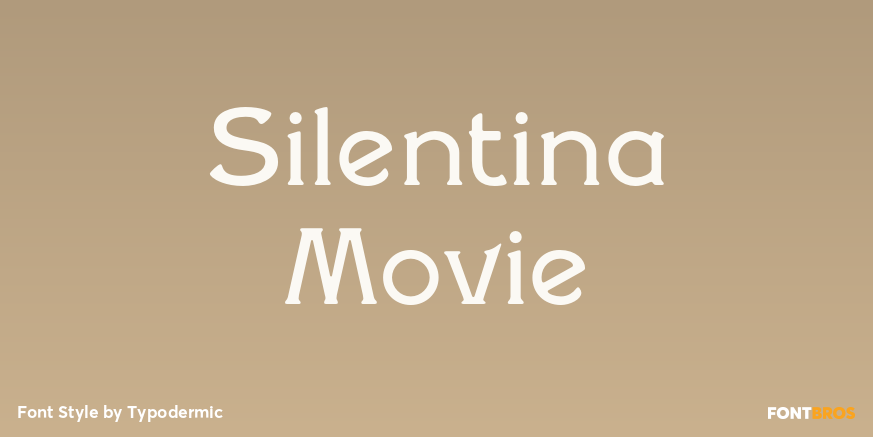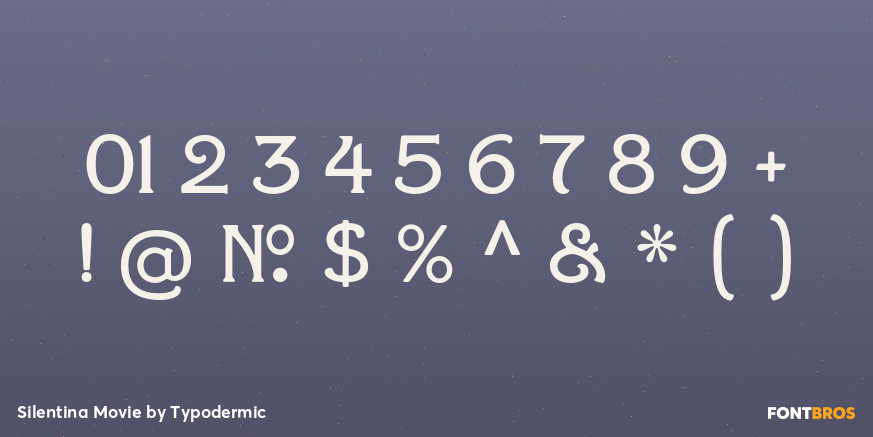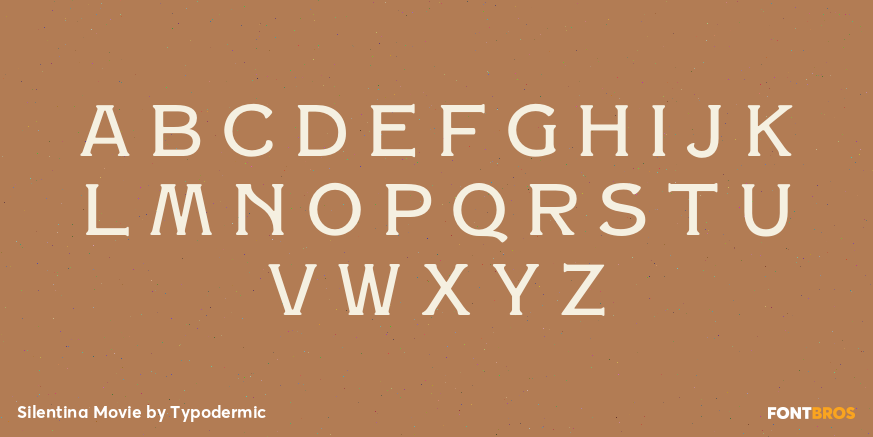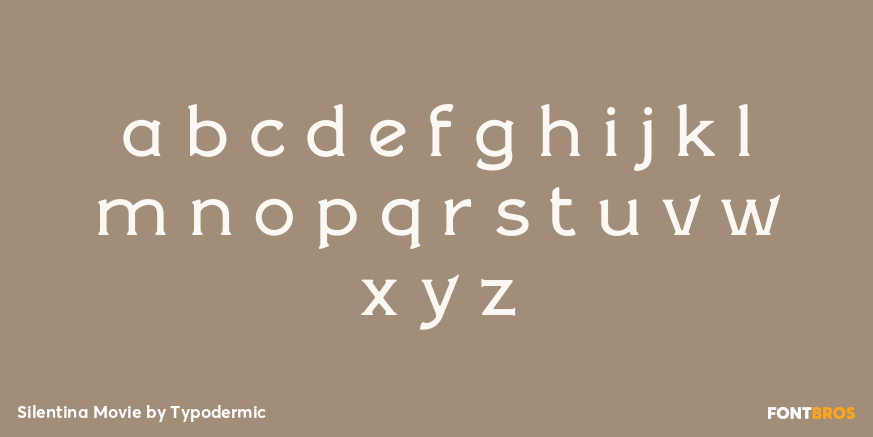
Silentina Movie
Buy NowSilentina Movie is based on Pastel, a rounded serif frequently seen in 1920s intertitles. Its softly reproduced forms create a consistent period voice for centered, multiline text without relying on generic vintage styling or an anachronistic Art Deco face. Compared with Silentina Film, Movie keeps the capital and lowercase treatment more stylistically unified.
Use Silentina Movie for dialogue cards, narration, location captions, translated intertitles, reconstructed scenes, and contemporary silent-film sequences. Its gentle shapes also suit documentary transitions, archival-story games, theatrical projections, and disc or streaming extras. Bring in Silentina Film when credits, chapter headings, or formal cards need a related but more inscriptional accent.